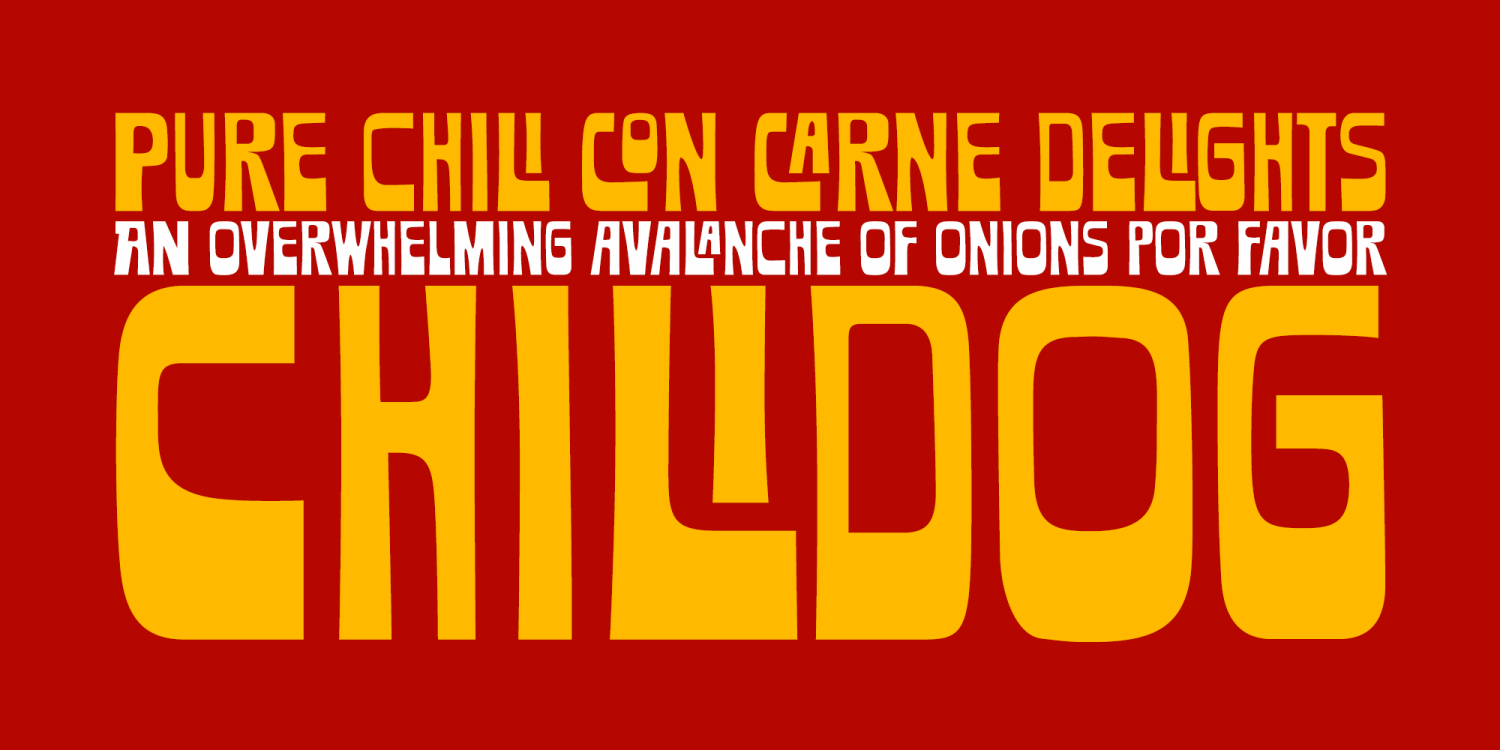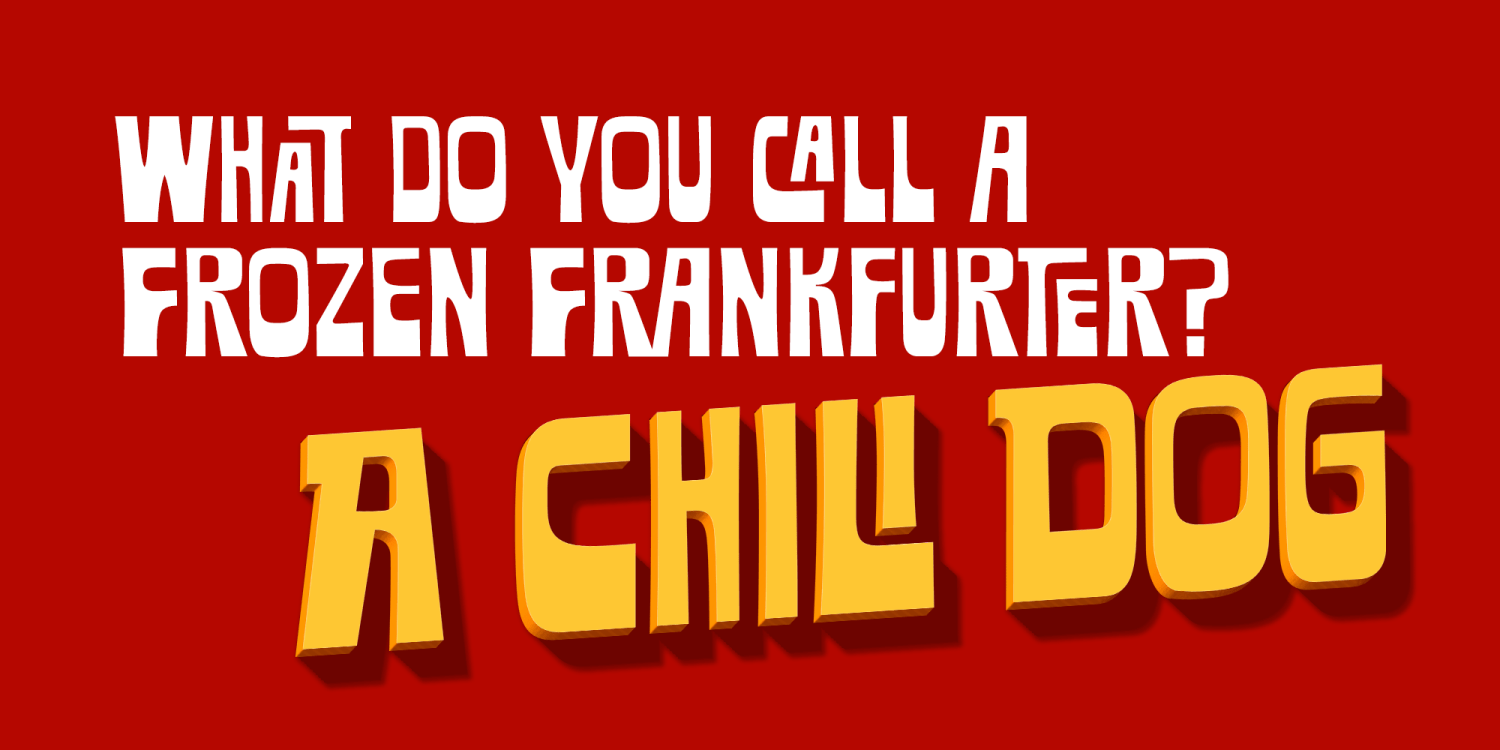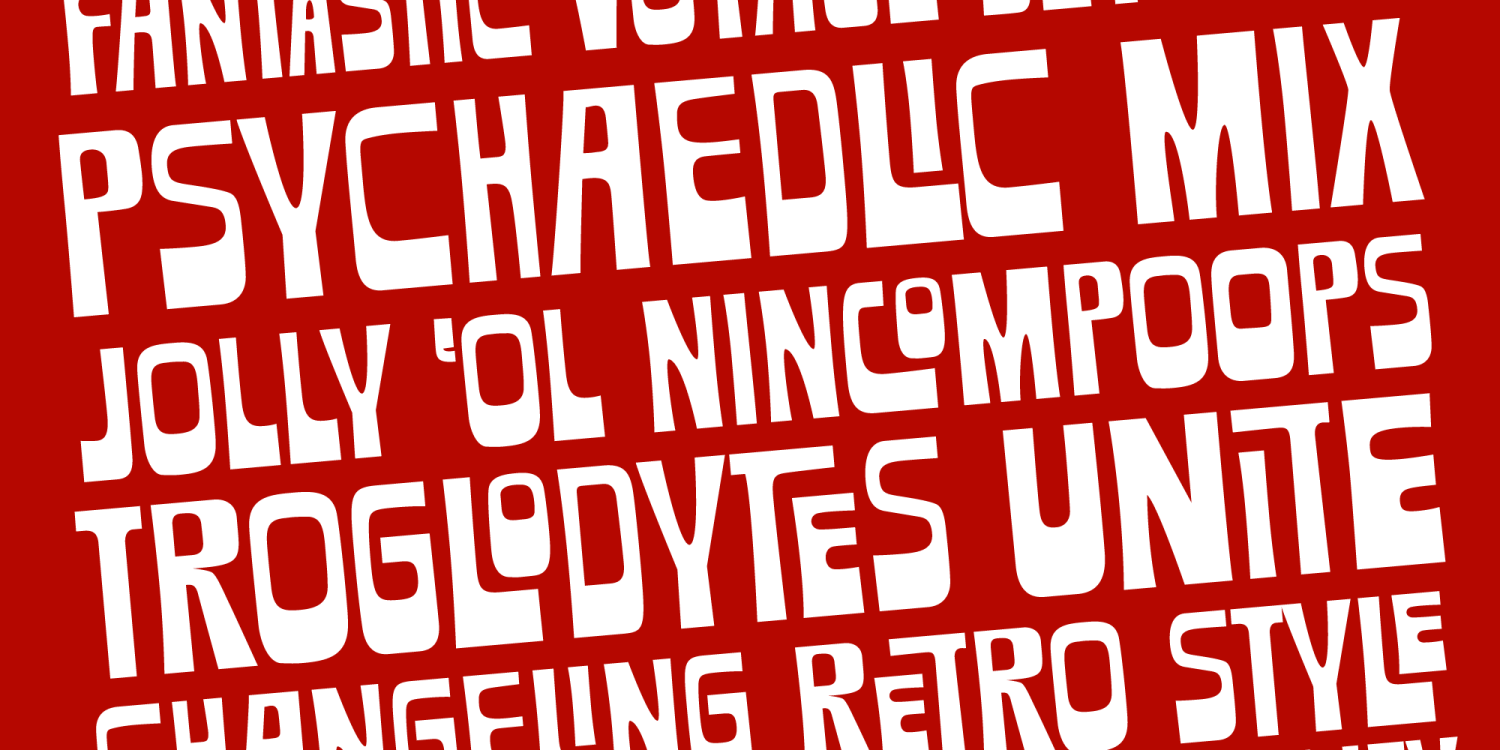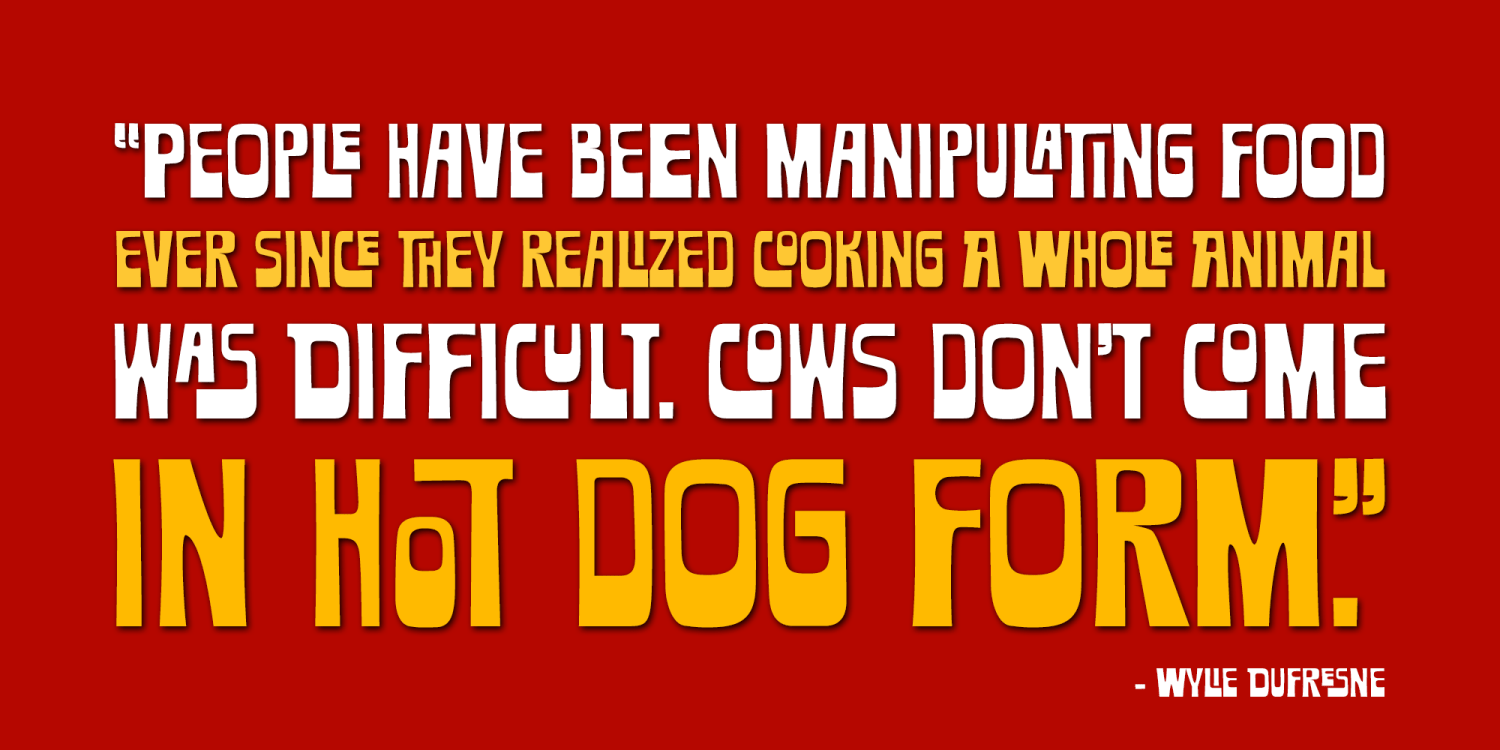
Chilidog PB
Looking for a real fun whack-a-doodle typestyle? You may have just found your match with the Chilidog PB typeface. Chilidog PB began as a digitization of the film typeface called Nectar by LetterGraphics. This font is filled with irregular shapes, shifting weights, and a collection of ligatures that give it real personality. It's a real eyecatcher, but don't take my word for it, give it a spin for yourself.